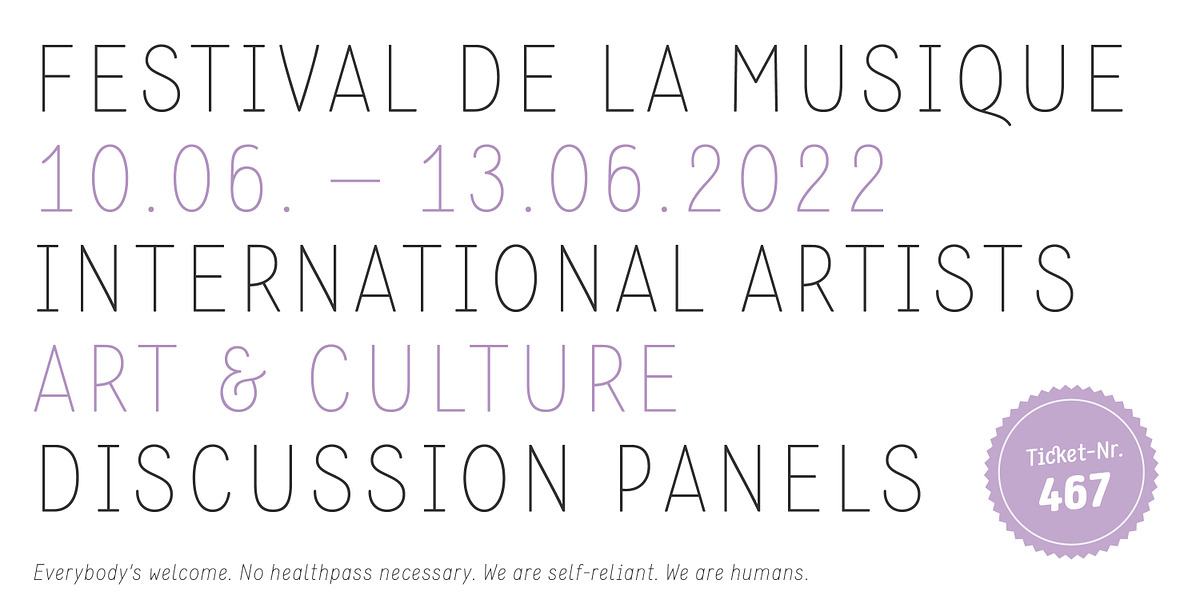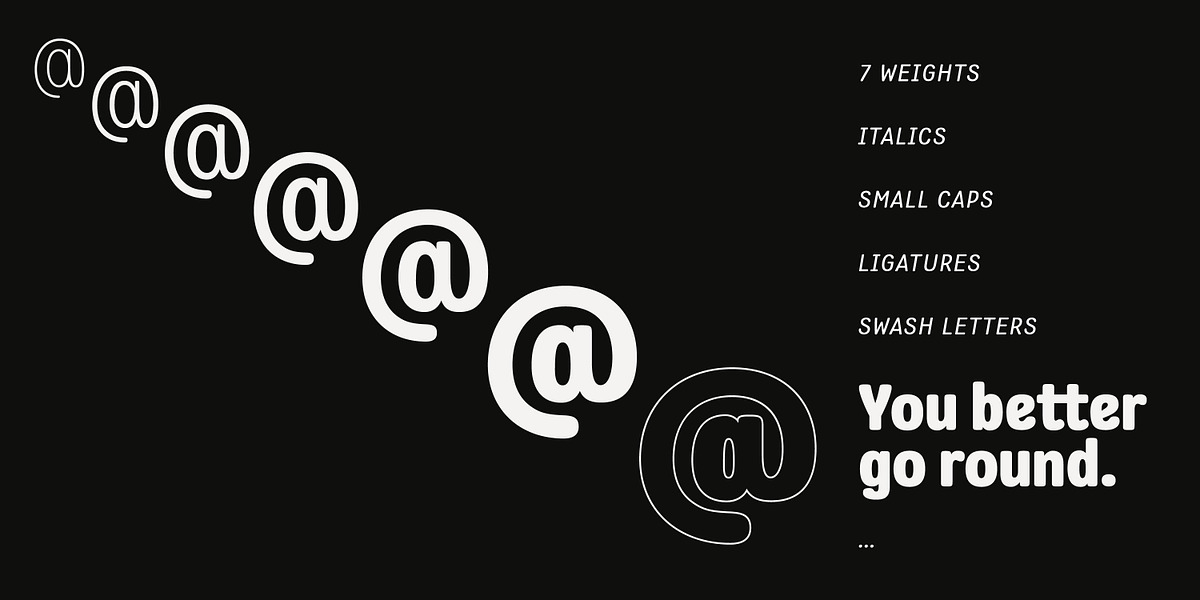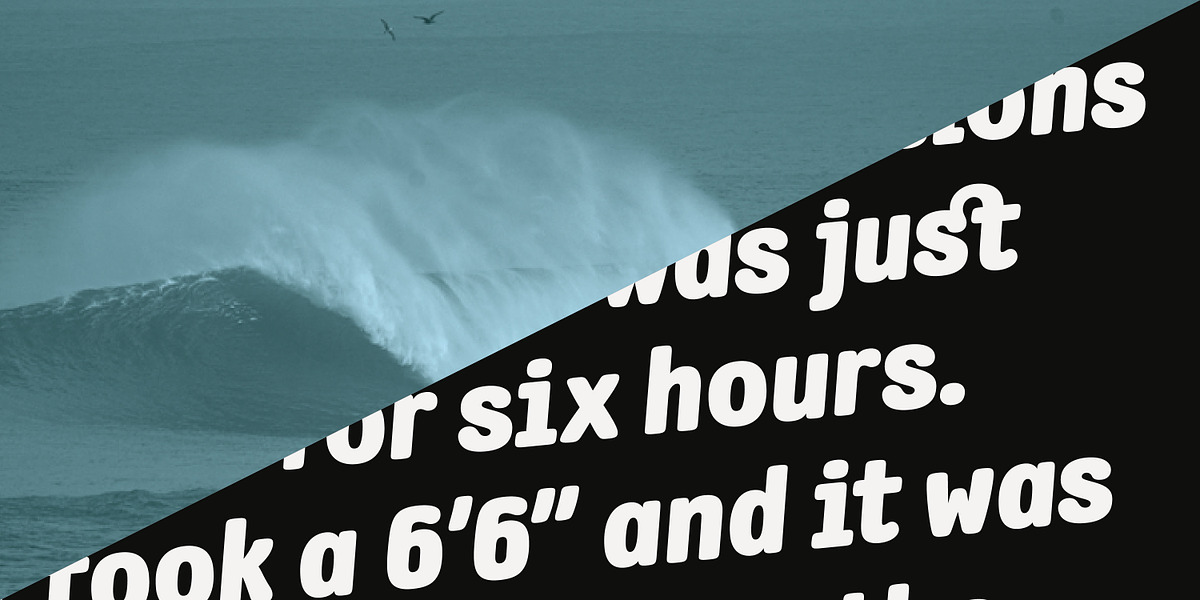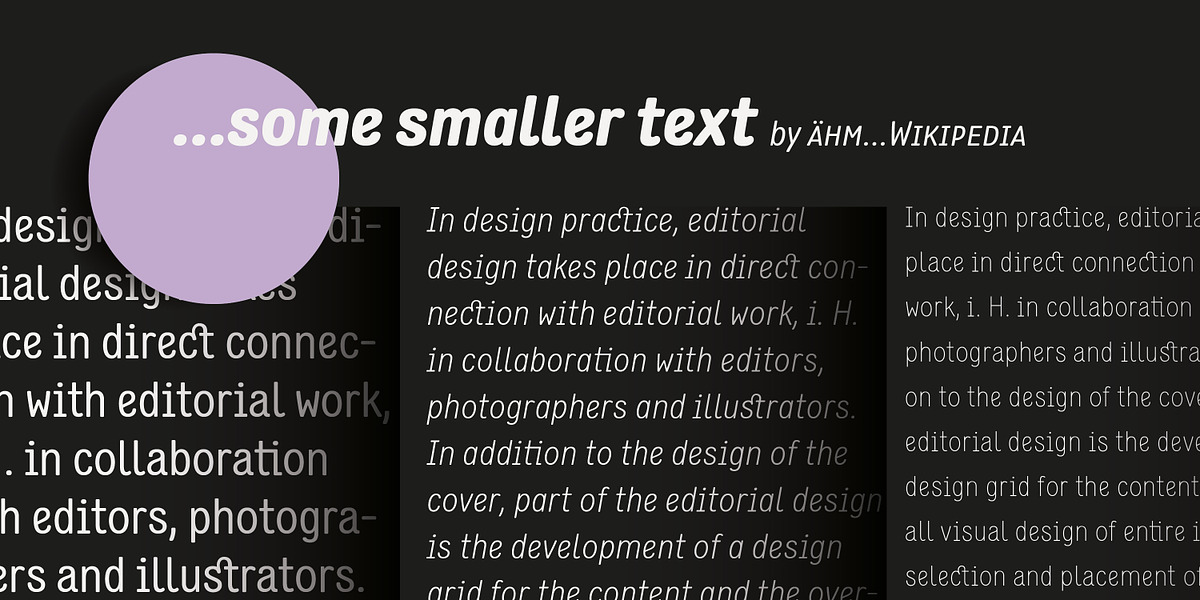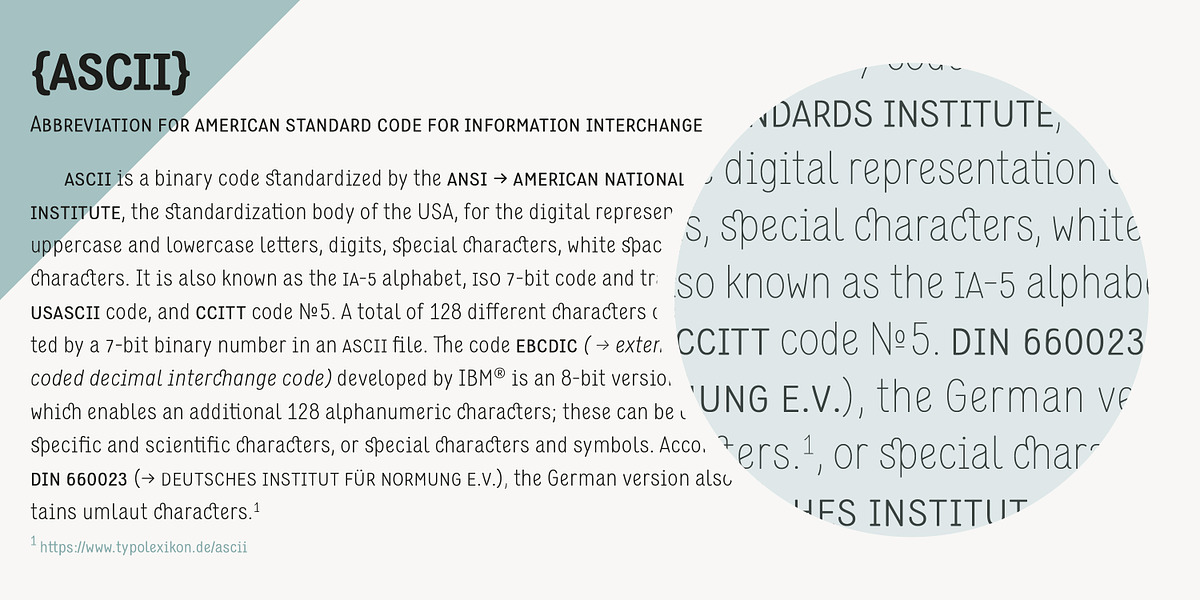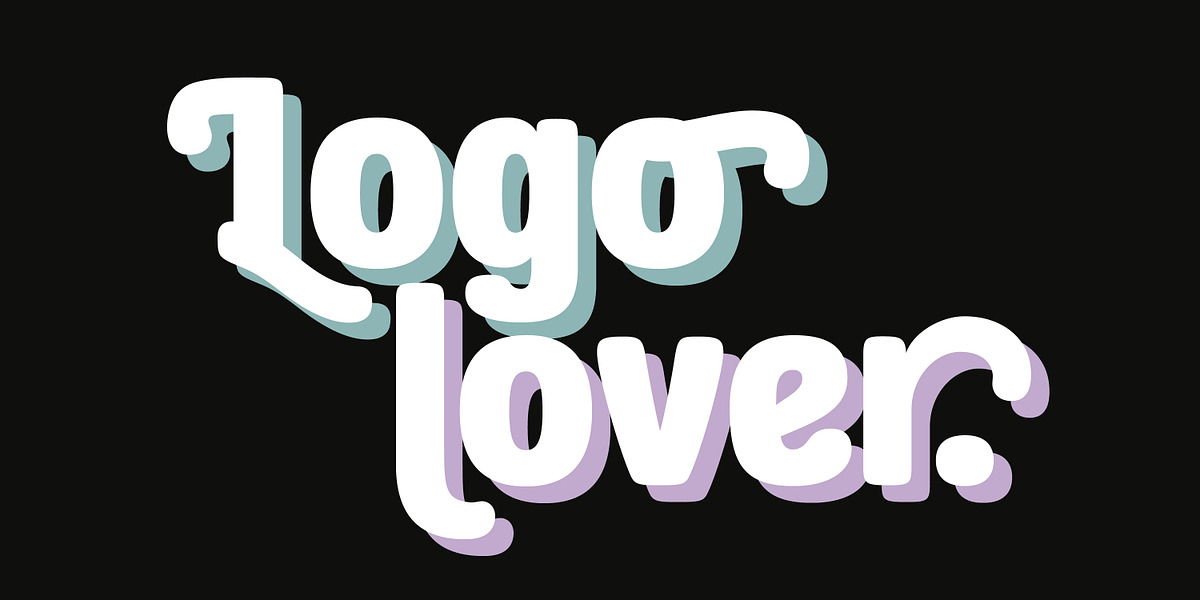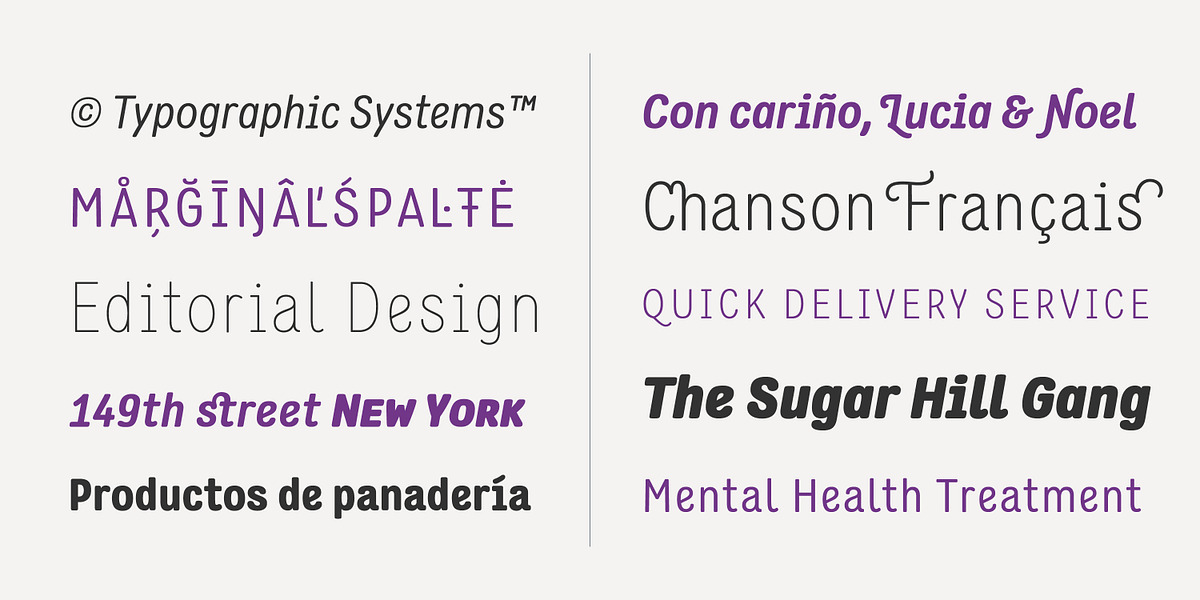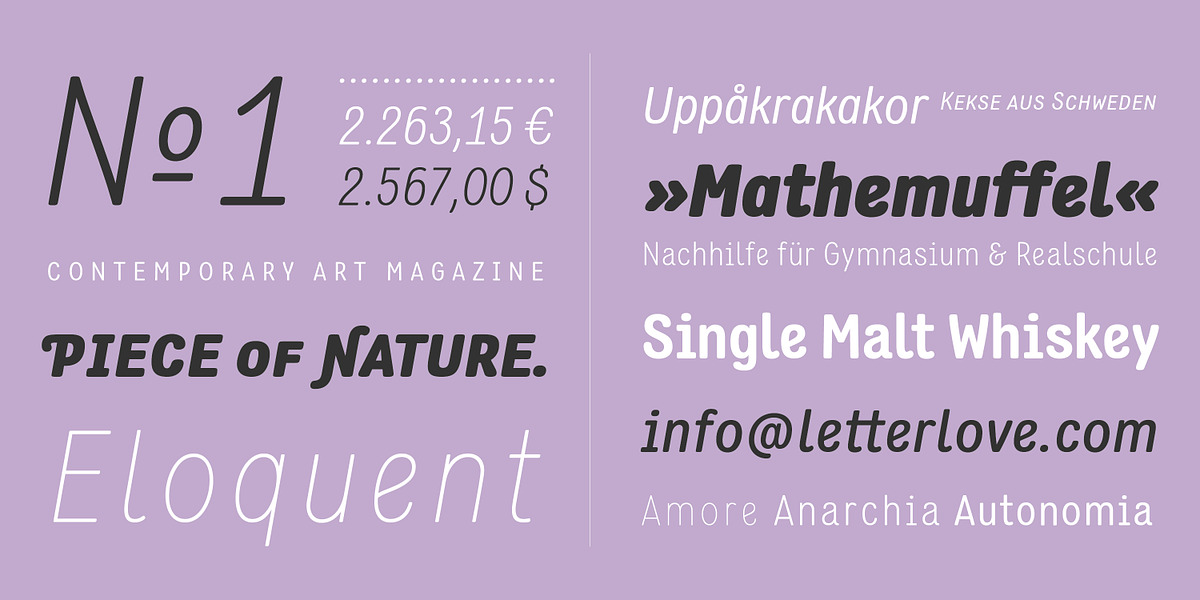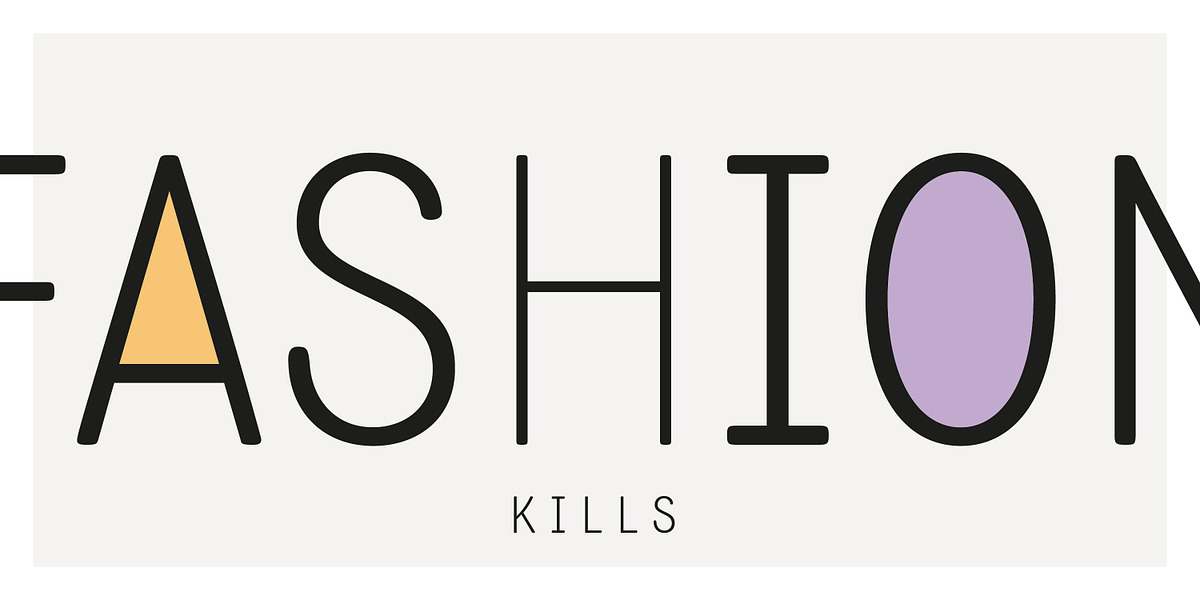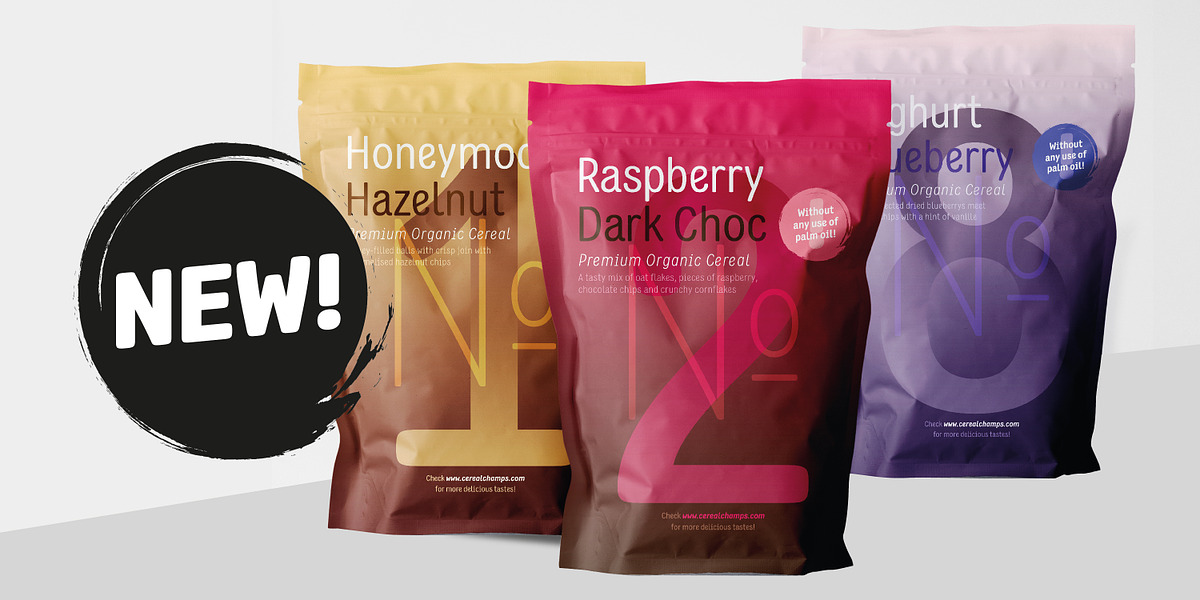
Flavoure
Flavoure is a humanist sans-serif typeface designed by Christoph Ulherr. It features seven weights for both roman and italic styles. The font includes an extended character set with small caps, ligatures, and swash letters to enhance typographic possibilities. Flavoure's friendly and round appearance makes it suitable for a variety of applications, including body text, headlines, logos, packaging, and stationery.